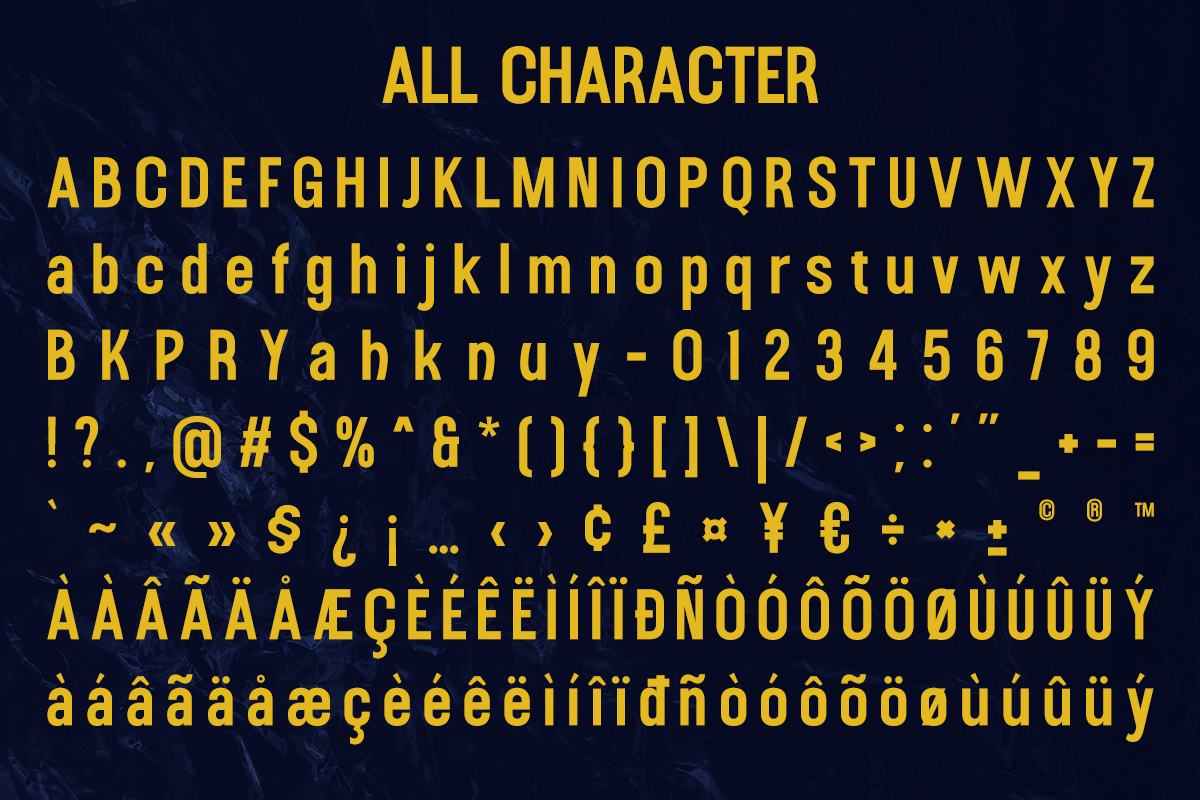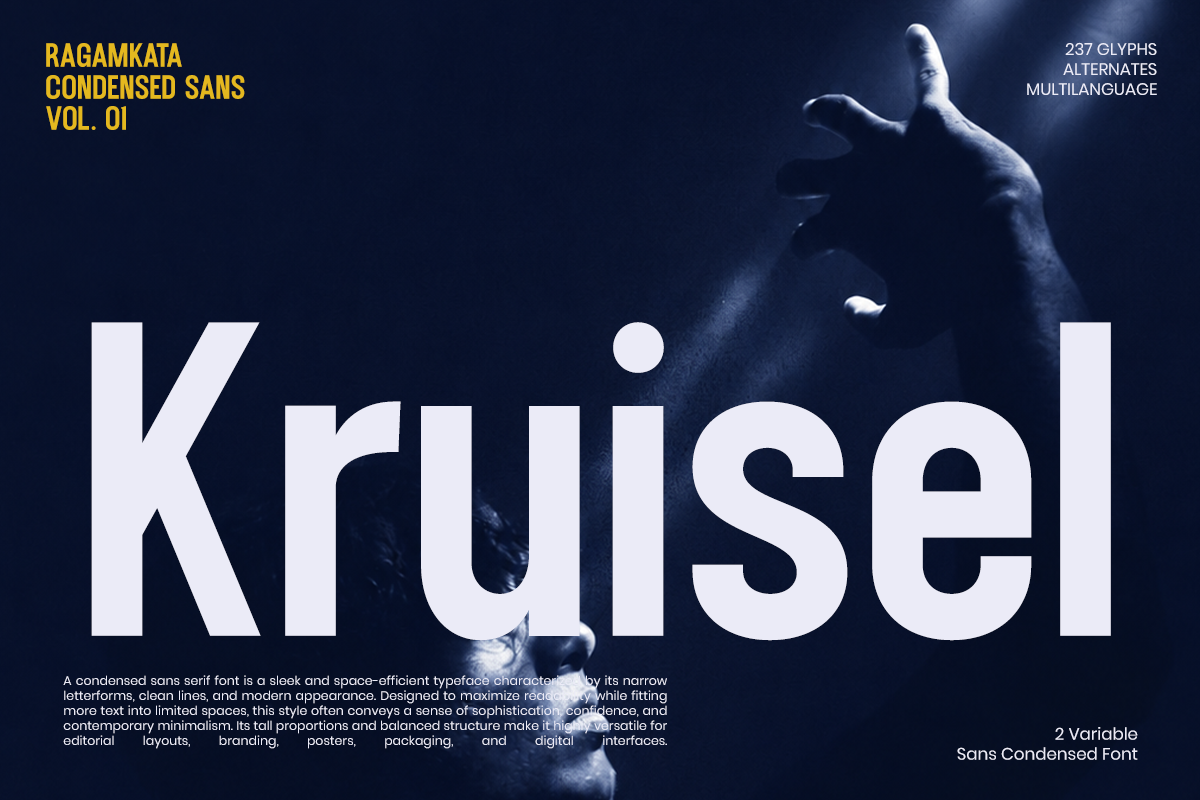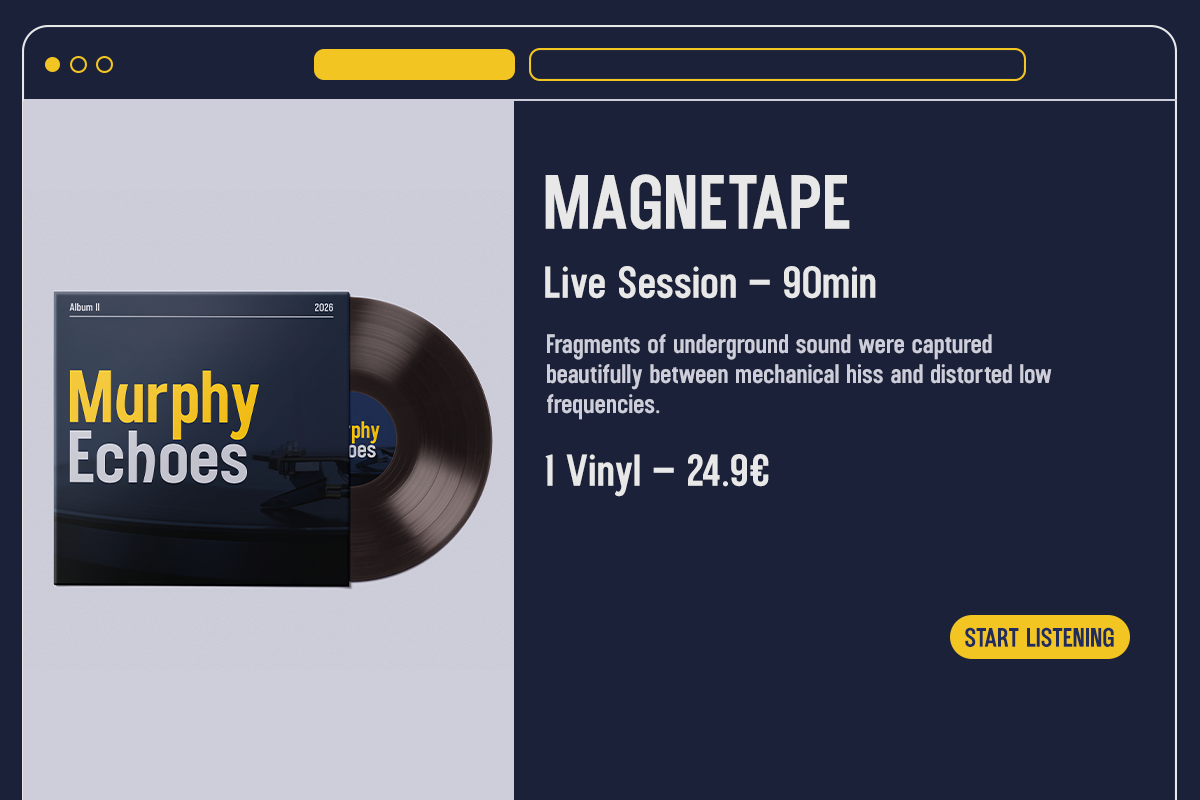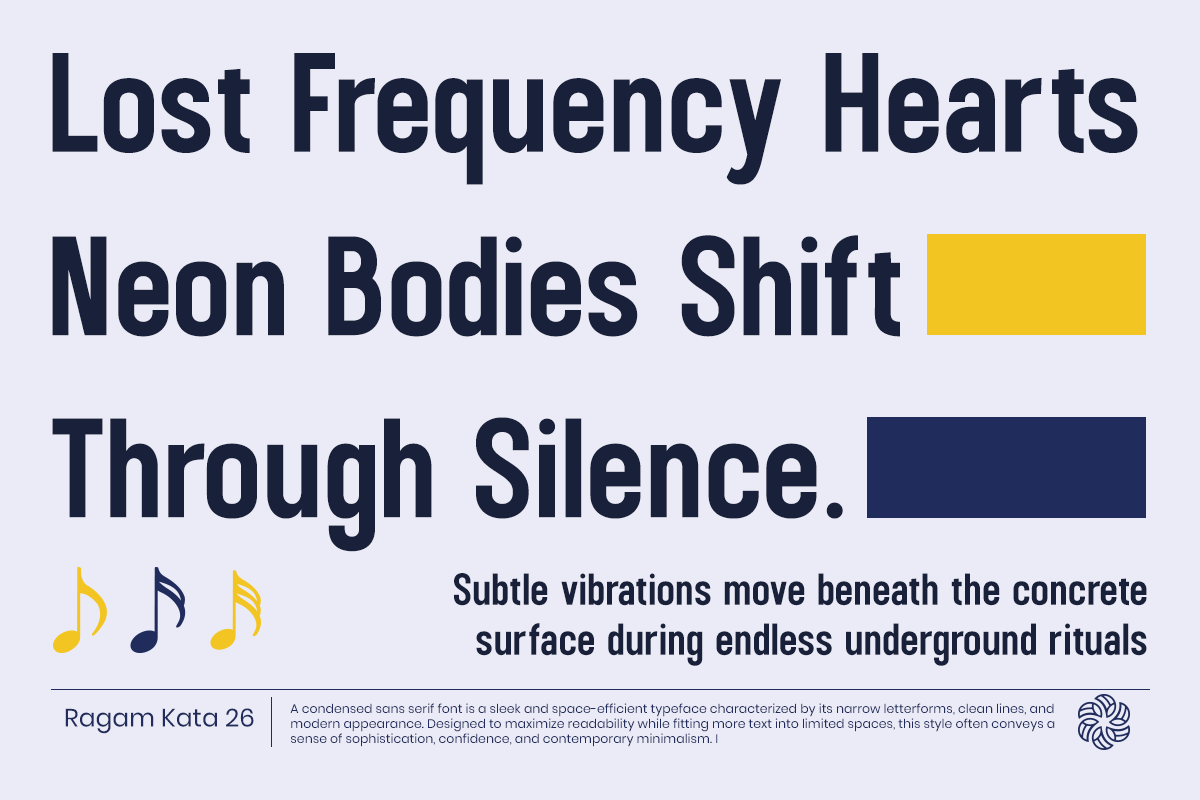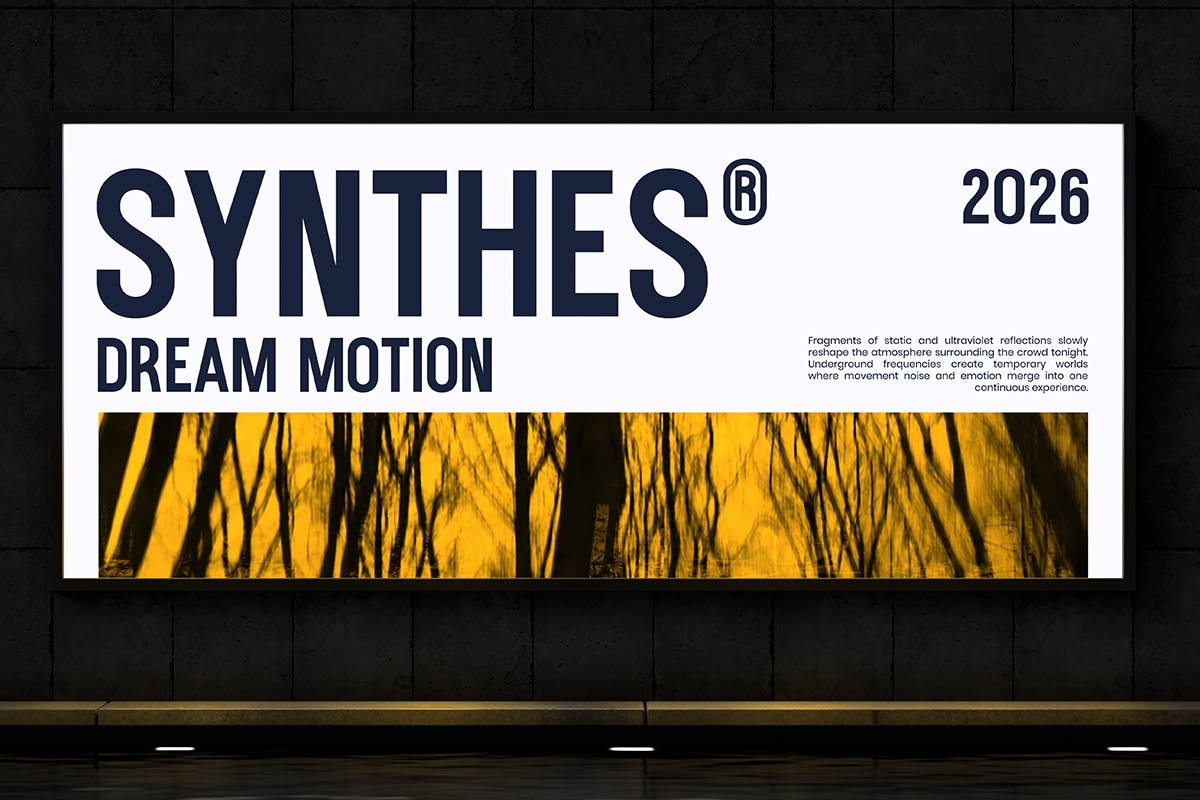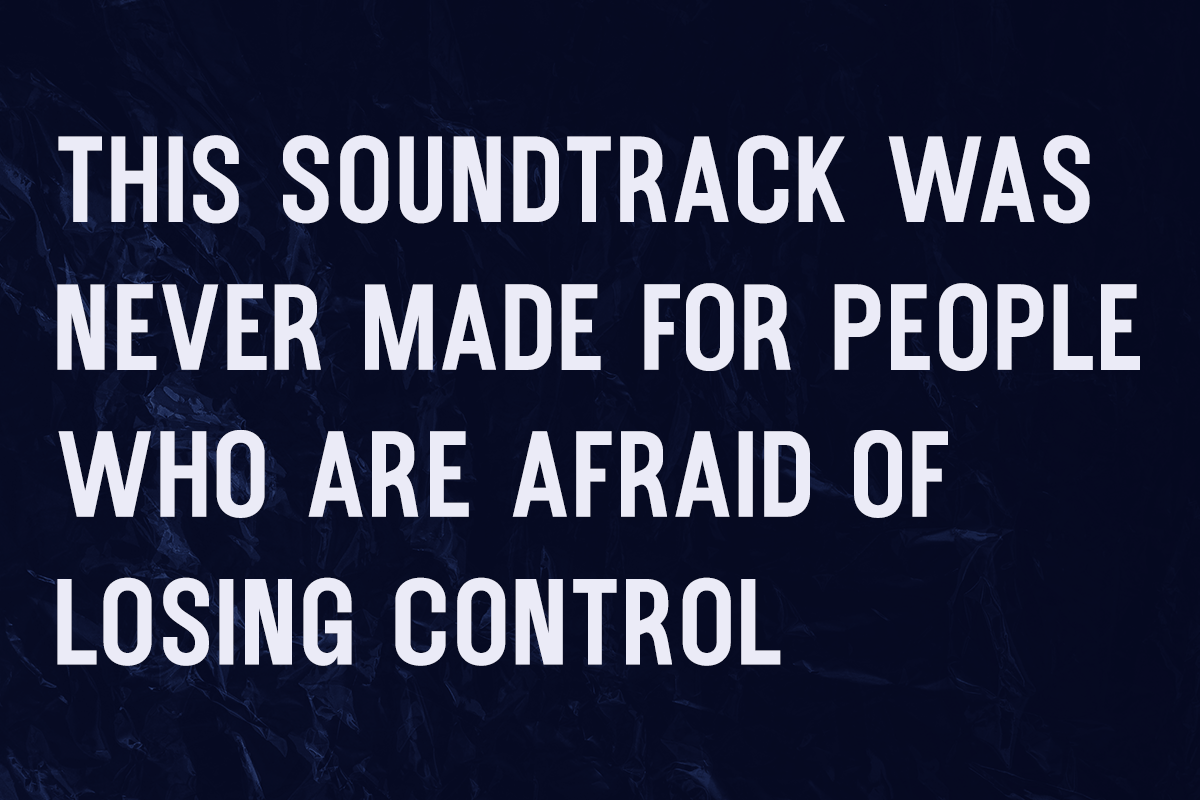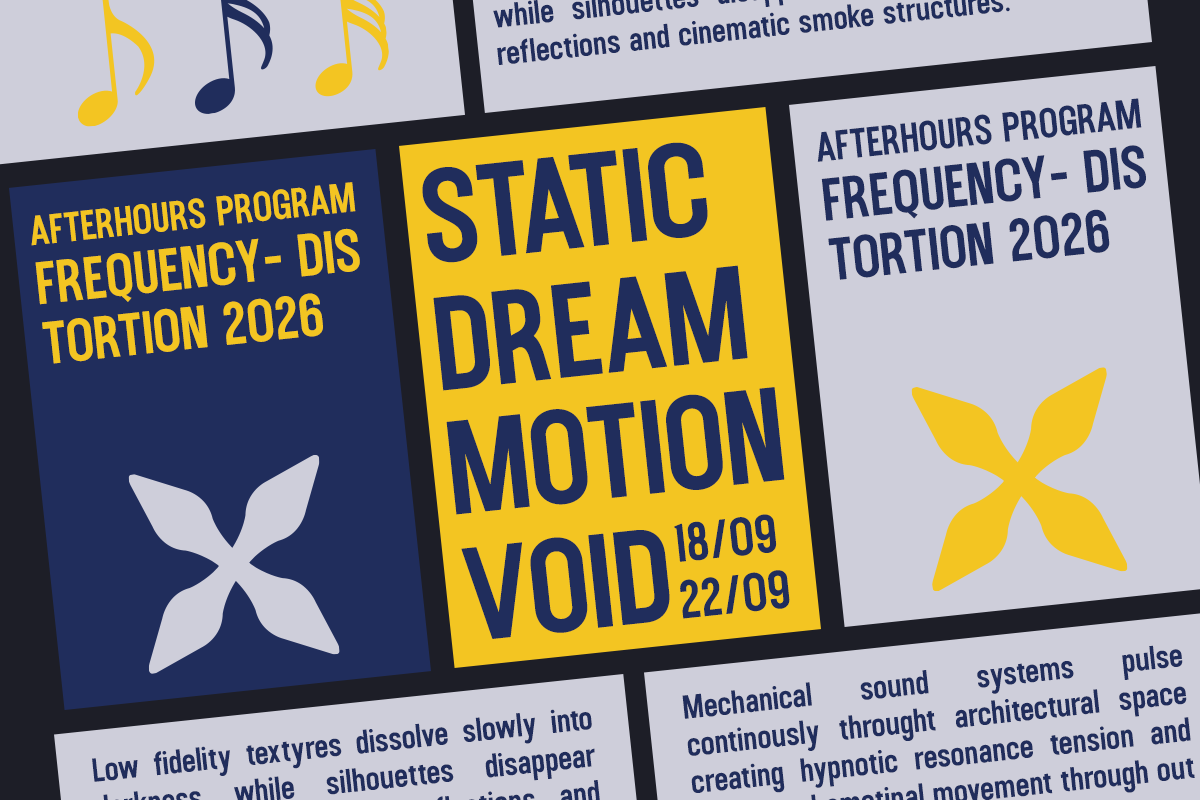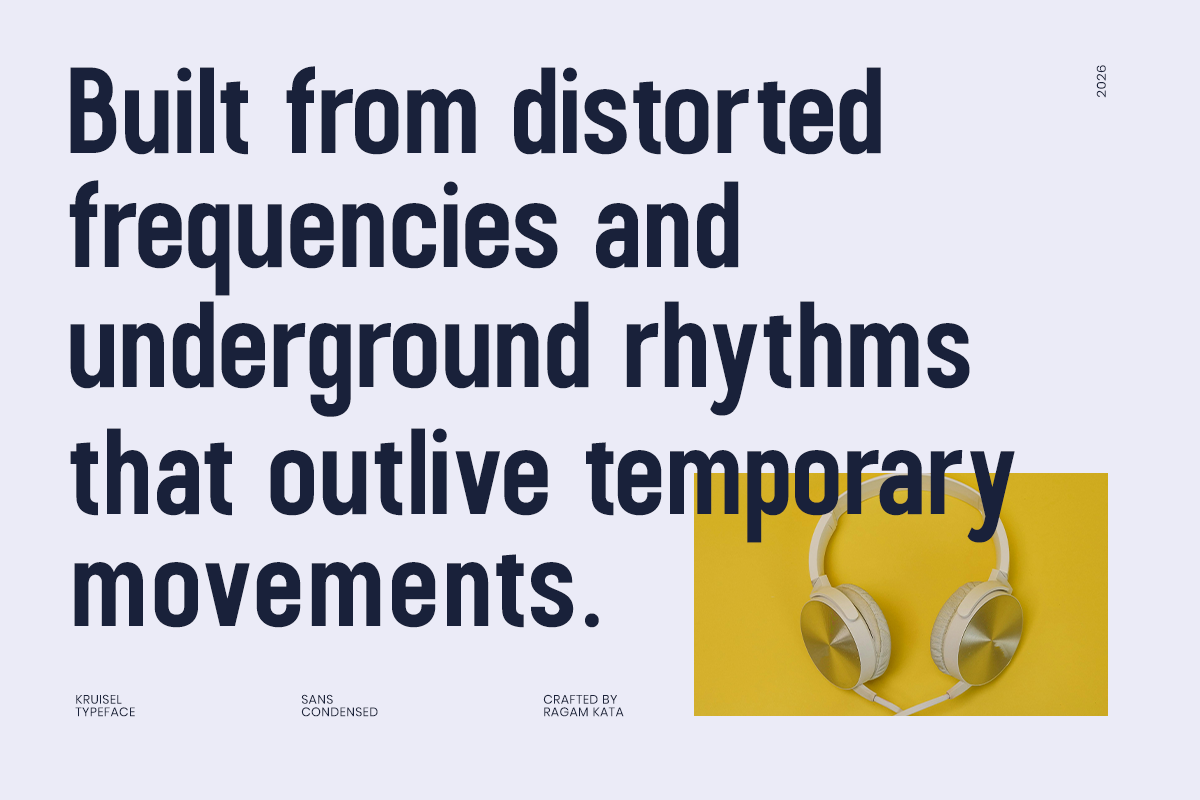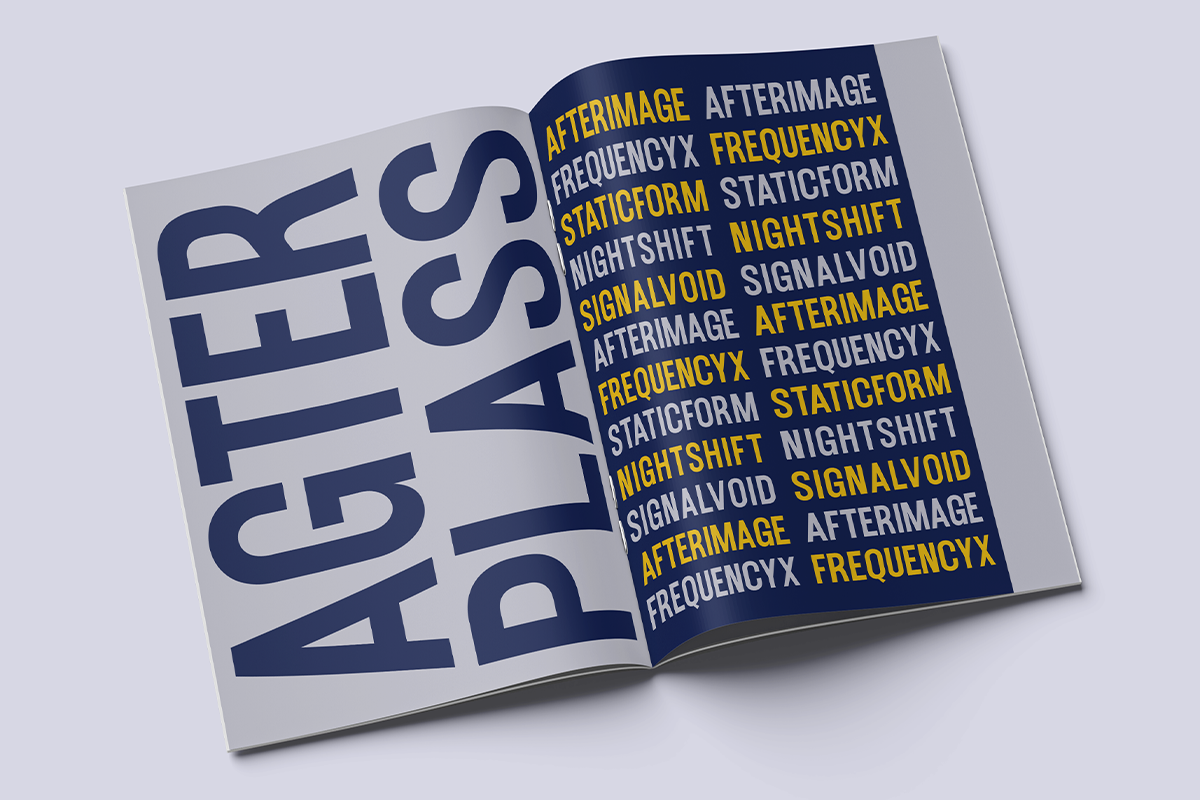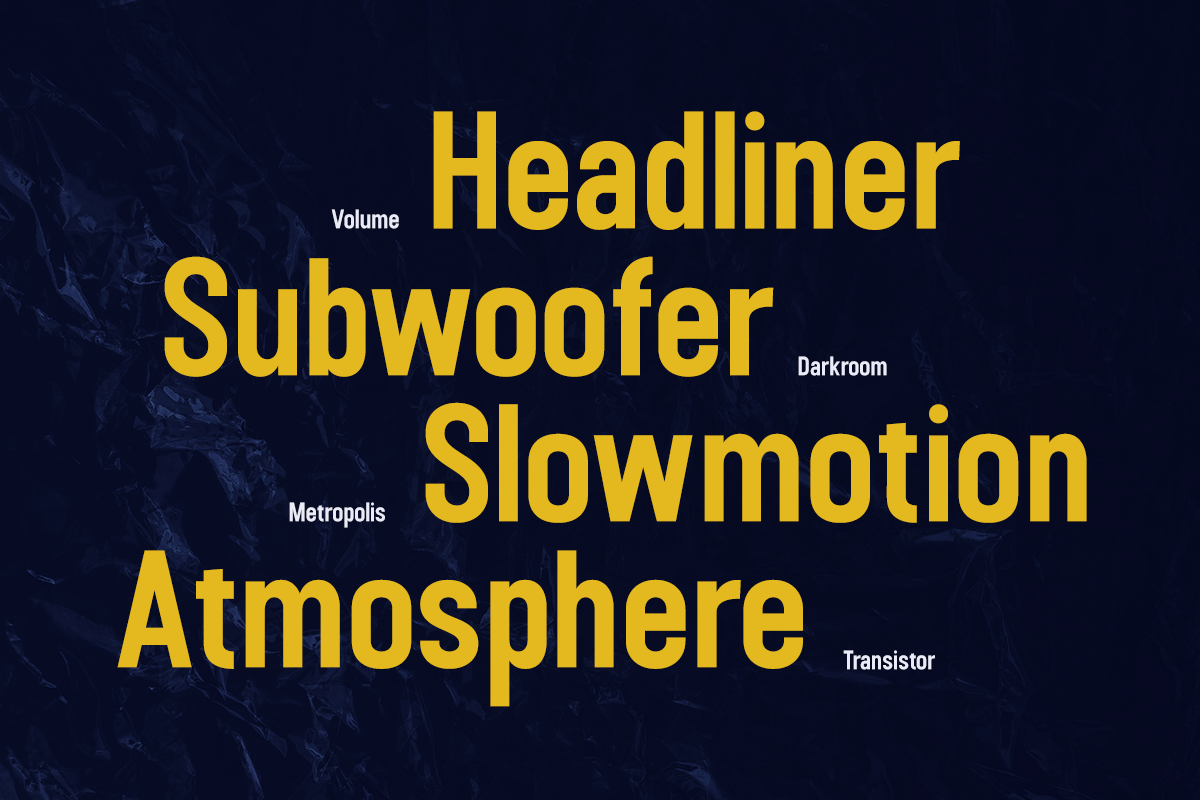
Kruisel - Condensed Sans Serif Font
Kruisel is a modern condensed sans serif font designed to deliver maximum visual impact with minimal space. Featuring tall proportions, clean geometric construction, and strong vertical rhythm, this typeface creates bold, sophisticated typography perfect for contemporary branding and editorial design.
Built for designers who demand clarity and presence, Kruisel combines condensed letterforms with exceptional readability, making it ideal for logos, headlines, magazines, posters, packaging, advertising, technology brands, and digital interfaces. Its balanced structure allows text to remain powerful and elegant across both large-scale displays and professional layouts.
With multilingual support, stylistic alternates, and versatile condensed forms, Kruisel provides a modern typographic solution for brands seeking a confident, premium, and highly recognizable visual identity.
Regular & Italic Style
Number, Symbol, Punctuation